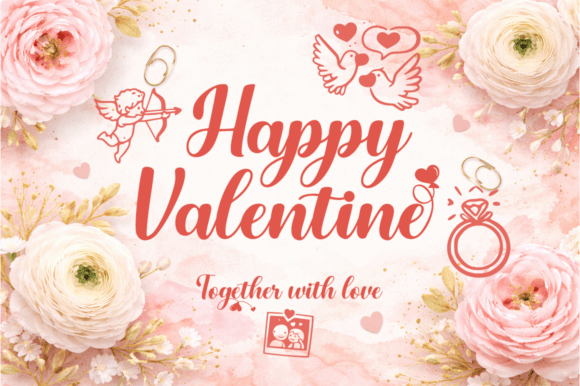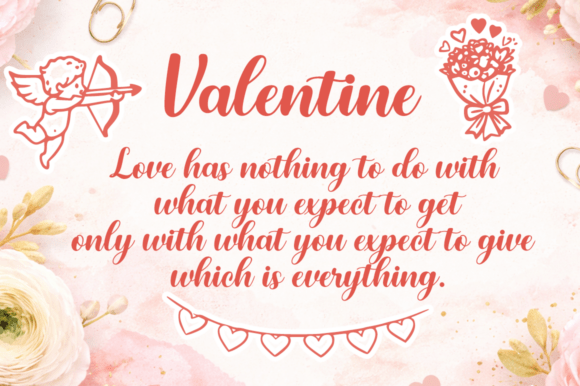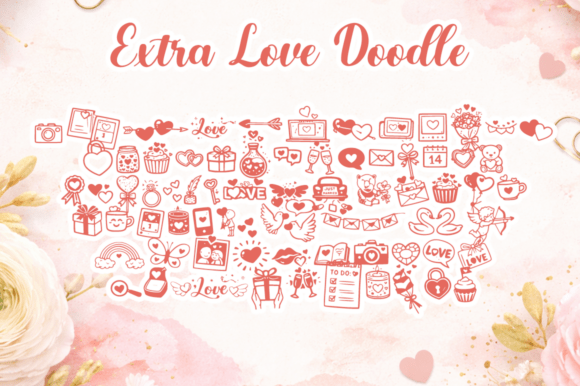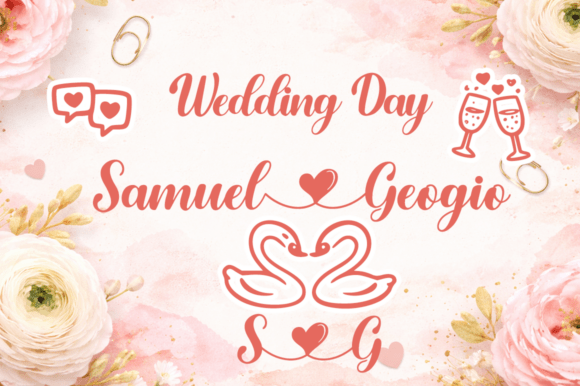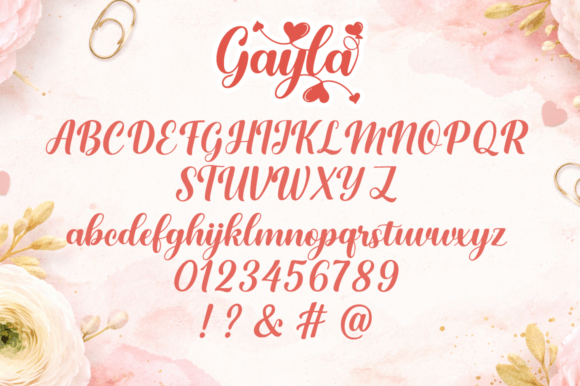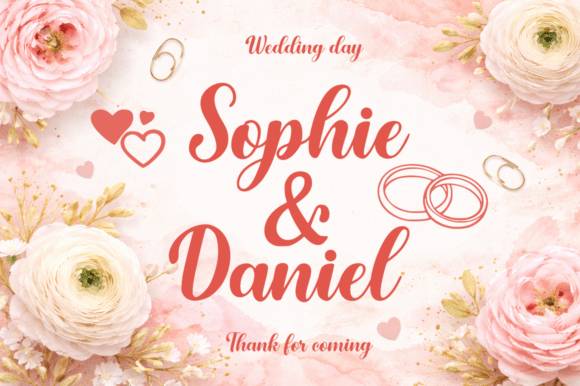
Introducing Gayla Font: The Epitome of Elegance and Charm
Imbued with a velvety blend of elegance and charm, Gayla is an exquisite script font that perfectly paints a picture of romance on your canvas of choice. This stunning font is designed to bring a touch of sophistication and whimsy to your designs, making it the perfect choice for a variety of creative projects.
The Beauty of Gayla’s Design
The smooth curves and graceful strokes of Gayla’s letterforms are peppered with delightful heart details, bringing an undeniable enchantment to your designs. The font’s whimsical flow is reminiscent of poetry, making it an ideal choice for wedding invitations, heartfelt Valentine’s projects, and warming greeting cards. Whether you’re a designer, crafter, or DIY enthusiast, Gayla is sure to captivate your audience with its romantic charm.
Gayla is more than just a beautiful script font – it’s a versatile tool that can be used in a variety of creative applications. From branding and logo design to social media graphics and typography, Gayla’s elegant letterforms are equally at home in any design scenario. The font’s flexibility allows you to experiment with different styles and creative expressions, ensuring that your designs always stand out.
Creative Freedom with Gayla
One of the standout features of Gayla is its range of heart alternatives, allowing you to add a personal touch to your designs. With over 80 bonus love-themed doodles, you’ll have access to a generous bouquet of creative elements that blend harmoniously with Gayla’s script style. These doodles are designed to answer your graphic needs and ensure fluidity in your designs, giving you the freedom to experiment and push the boundaries of your creativity.
Optimized for Perfection
Every element in Gayla is crisply rendered and maintains equilibrium, ensuring that your designs look flawless and professional. The font is optimized for use on a variety of platforms and devices, guaranteeing that your creations will be displayed in the best possible light. Whether you’re designing for print or digital, Gayla has got you covered.
Gayla is a dream come true for designers and crafters looking to add a touch of romance and elegance to their creations. With its extensive range of uses and creative possibilities, this font is sure to become a staple in your design arsenal. From wedding planners and event designers to social media influencers and bloggers, Gayla is the perfect choice for anyone looking to create beautiful, eye-catching designs.
Tips for Using Gayla
To get the most out of Gayla, try experimenting with different font sizes, colors, and combinations. Use the heart alternatives and doodles to add a personal touch to your designs, and don’t be afraid to get creative with your typography. Whether you’re designing for a client or working on a personal project, Gayla’s versatility and charm are sure to shine through.
In conclusion, Gayla font is a true gem in the world of typography. With its exquisite design, versatility, and creative freedom, it’s the perfect choice for designers and crafters looking to add a touch of romance and elegance to their creations. Whether you’re working on a wedding invitation, social media graphic, or personal project, Gayla is sure to impress. So why wait? Discover the magic of Gayla font today and take your designs to the next level.